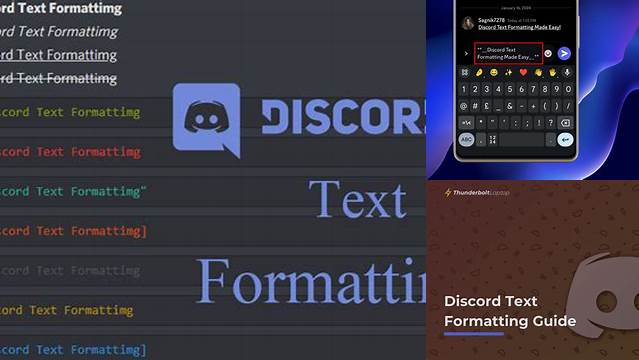
Discord Fonts: Stylish Text & Formatting Guide
Hey guys! Ever wondered how to spice up your Discord chats and make your messages pop? Well, you're in luck because we're diving deep into the world of Discord fonts! Forget plain, boring text – we're talking about italics, bold, underlines, and even some fancy tricks to make your messages stand out. This guide is your one-stop shop for everything related to formatting text on Discord. We'll cover the basics, explore some hidden gems, and even give you a few tips and tricks to become a Discord formatting pro. So, buckle up, get ready to level up your chat game, and let's get started! We'll go from simple formatting to using special characters and even some fun font generators to keep your messages fresh and exciting. This will help you create an amazing user experience and help your community grow by making your messages visually appealing. Let’s get to it!
How to Bold Text in Discord
Alright, let's start with the OG: bold text! This is one of the most common and straightforward formatting options in Discord fonts. It's a super simple way to emphasize important words or phrases. To make your text bold, all you need to do is surround your words with two asterisks (**). For example, if you want to say "Hello, world!" in bold, you would type Hello, world! in your message. Discord will then render this as Hello, world!. See? Easy peasy! This is great for highlighting key information, drawing attention to important announcements, or just making a statement. It's also a good way to break up long blocks of text, making your messages more readable and engaging. Using bold effectively can significantly improve the clarity and impact of your messages, making them more likely to be noticed and remembered. It’s a fundamental skill for any Discord user! Practice this, and you'll be well on your way to creating more engaging content that stands out. You can mix and match this with other formatting options like italics and underlines to create even more complex and visually interesting text styles. The best part? It works across all platforms, so whether you're on your computer, phone, or tablet, your bold text will look the same. So, go ahead, experiment, and start using bold to make your messages stand out! The more you use it, the more natural it will become. This is a crucial first step on your journey to mastering Discord fonts and creating awesome chats.
Emphasizing Words in Discord
When using Discord fonts, emphasizing certain words within your sentences is essential. Using bold text is a simple yet effective way to achieve this. By surrounding specific words or phrases with double asterisks (**), you can instantly draw attention to them. For example, if you want to emphasize the word "important" in a sentence like "This is an important announcement," you would write it as "This is an important announcement." This technique is perfect for highlighting key information, making announcements, or emphasizing specific details. The visual contrast of bold text helps to break up long paragraphs and guide the reader's eye to the most crucial parts of your message. This improves readability and ensures that your audience doesn't miss important points. Effective use of bold text can dramatically enhance the clarity and impact of your messages, ensuring they are noticed and remembered. Practice using bold strategically to make your communications more effective and engaging, thus boosting your overall user experience and Discord fonts mastery. You can combine this with italics and underlines for even more creative and impactful messaging, making your server a more dynamic and engaging place for everyone!
How to Italicize Text in Discord
Next up on our Discord fonts adventure: italics! Similar to bold, italics are another simple formatting option that adds a touch of flair to your messages. To italicize text, you just need to surround your words with single asterisks (*). So, if you want to say "Hello, world!" in italics, you would type Hello, world!. This will appear as Hello, world! in your message. Italics are great for emphasis, indicating a thought, or quoting someone. They're also useful for distinguishing titles, like book names or game names. Using italics can make your messages more dynamic and visually appealing. It adds another layer of expression beyond plain text, helping you convey nuances in your communication. Like bold text, italics work seamlessly across all Discord platforms. This means your italicized text will look the same on your desktop, mobile, or web app. Mastering italics is a crucial step towards mastering Discord fonts and formatting. It can help you create more expressive and engaging content. Experiment with it, and you’ll see how much it enhances your ability to communicate effectively. Feel free to use both bold and italics together to make your messages even more interesting!
Using Italics for Emphasis and Quotes in Discord
Discord fonts offer great options, and italics are super versatile for a variety of uses! Primarily, italics are used to emphasize words or phrases within a sentence. This is similar to using bold, but offers a softer visual effect. For instance, if you want to emphasize a feeling or a thought, like "I think we should go," italics are ideal. This subtle emphasis can significantly change the tone and impact of your message. Italics are also fantastic for quoting other people. By putting the quoted text in italics, you clearly distinguish it from your own words, making it easy for readers to understand who said what. This is especially useful in conversations or in a server where multiple people are sharing ideas. Using italics for quotes improves clarity and reduces any chance of misinterpretation. In addition to emphasis and quotes, italics are perfect for writing the names of books, movies, or video games. This provides a visual cue that helps viewers immediately understand the context. For example, you might write: "I just finished reading The Lord of the Rings." This helps keep your content clean and easy to follow, so your audience can focus on the content. Mastery of italics enhances your overall ability to use Discord fonts. With practice, using italics will become second nature. This is a key element of good communication in Discord!
How to Underline Text in Discord
Alright, let's talk about underlining text in Discord fonts. While not as commonly used as bold or italics, underlining can be a helpful formatting option for emphasis or to draw attention to specific words or phrases. However, it's important to note that, unlike bold and italics, you can't directly underline text using a simple markdown syntax in Discord. Instead, you'll need to use a workaround involving the __
(double underscore) characters. Surround the text you want to underline with double underscores. For example, typing __Hello, world!__
will produce Hello, world! . The double underscore will make the text underlined. Underlining is particularly useful for highlighting important information, indicating links, or emphasizing specific details. While not as widely used as bold or italics, it can be a valuable tool in your formatting arsenal. Use it strategically to make your messages more readable and engaging. It's also a good way to give a visual cue that something is important. However, don't overuse underlining, as too much of it can make your messages look cluttered. Remember, the key is to use formatting options sparingly to maintain clarity. Learning how to use the underline feature effectively completes your journey with Discord fonts. It’s a subtle but effective way to make your messages stand out!
Implementing Underlining for Emphasis and Clarity in Discord
Discord fonts provide options to improve communication, underlining being one of them. Although the direct underline is not available through standard markdown, there is a workaround using double underscores (__). This allows you to highlight specific words or phrases, providing additional emphasis. Underlining is often used to point out key details or draw attention to important announcements. For example, when you're sharing a crucial piece of information, you might write: "Important: The meeting has been moved." This immediately grabs the reader's attention. In addition to emphasizing important points, underlining can be used to indicate hyperlinks. While Discord automatically creates hyperlinks from URLs, you can underline the descriptive text to make it more obvious. For example, instead of just posting the URL, you might write: "Click here to learn more: [link]". This helps users quickly identify where to click. Keep in mind that overuse of underlining can make your messages cluttered. It's important to use it sparingly and strategically to maintain clarity. By balancing the use of other formatting options, like bold and italics, you can effectively communicate in Discord. Mastering underlining, even with its workaround, helps you to become a more sophisticated Discord user. It also helps improve your use of Discord fonts in general.
Combining Bold, Italics, and Underline in Discord
Now that we've covered bold, italics, and underline individually, let's take it up a notch! One of the coolest things about Discord fonts is that you can combine these formatting options to create more complex and eye-catching text styles. Imagine wanting to say something that's both important and thought-provoking. You could combine bold and italics! Just surround your text with both the bold and italic markdown. For example, ***Hello, world!***
will produce Hello, world!. It's a great way to create emphasis within emphasis, making your message stand out even more. Combining these styles allows you to add multiple layers of nuance to your messages. You can also combine underlining with bold or italics. For example, **__Important Note:__**
Using Code Blocks and Inline Code in Discord
Let's switch gears and talk about code blocks and inline code in Discord fonts! If you're a programmer or someone who just wants to share some code snippets, this is a must-know. To create an inline code, use the backtick symbol (`). Surround the code snippet with a single backtick. For example,
print("Hello, world!")
will appear as `print(